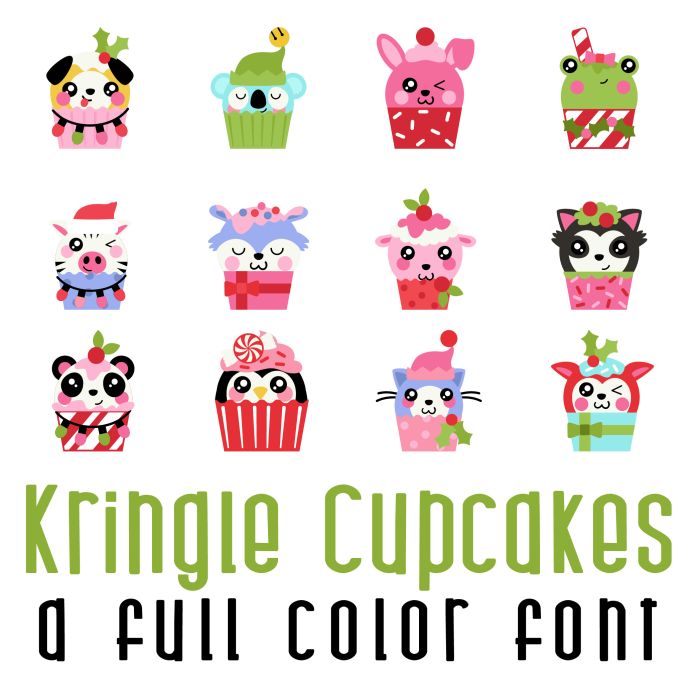
This fun full color font features 26 adorable Kawaii style Christmas animal cupcakes. Perfect for cards, crafts, gifts, decor, planner stickers, scrapbook pages, classrooms and more!